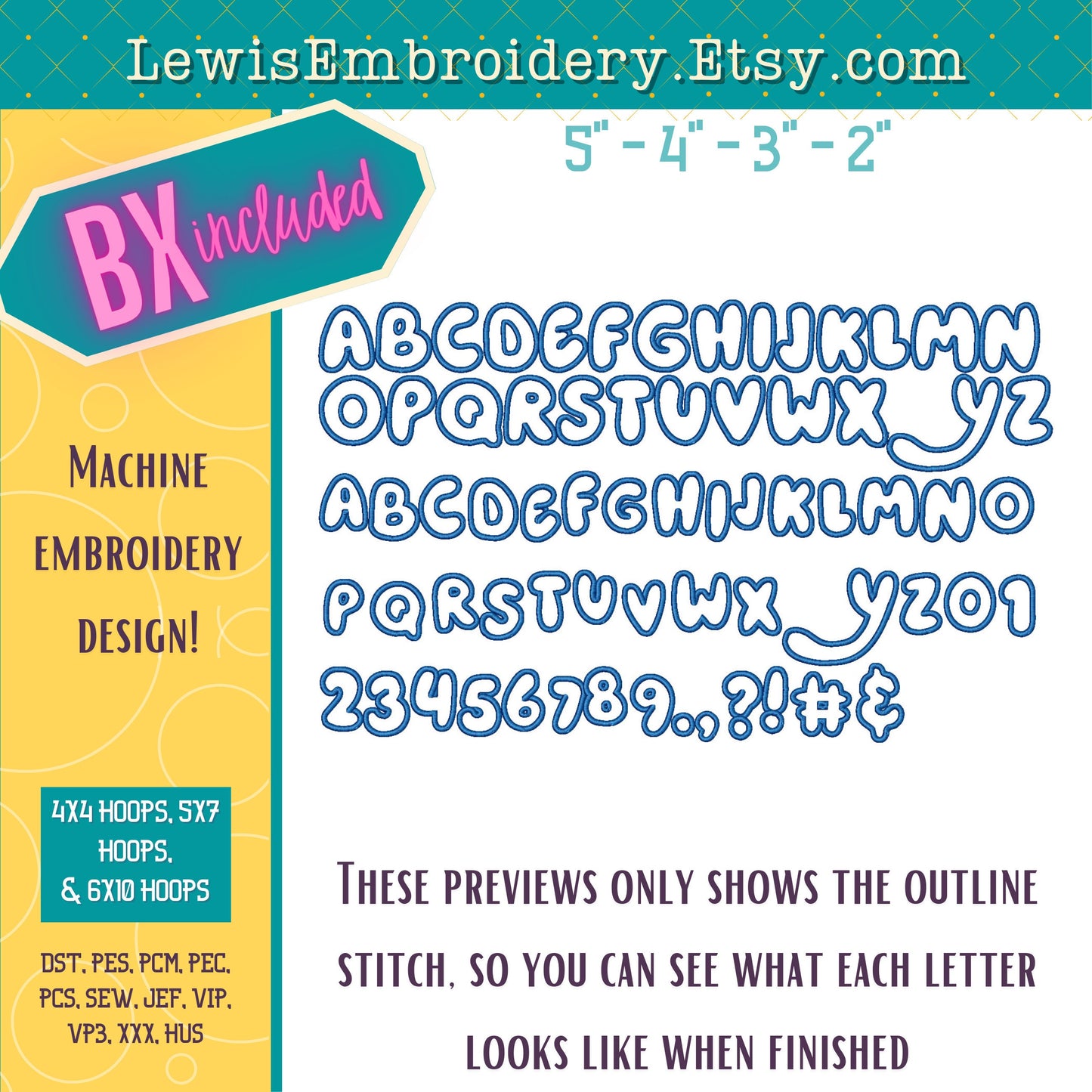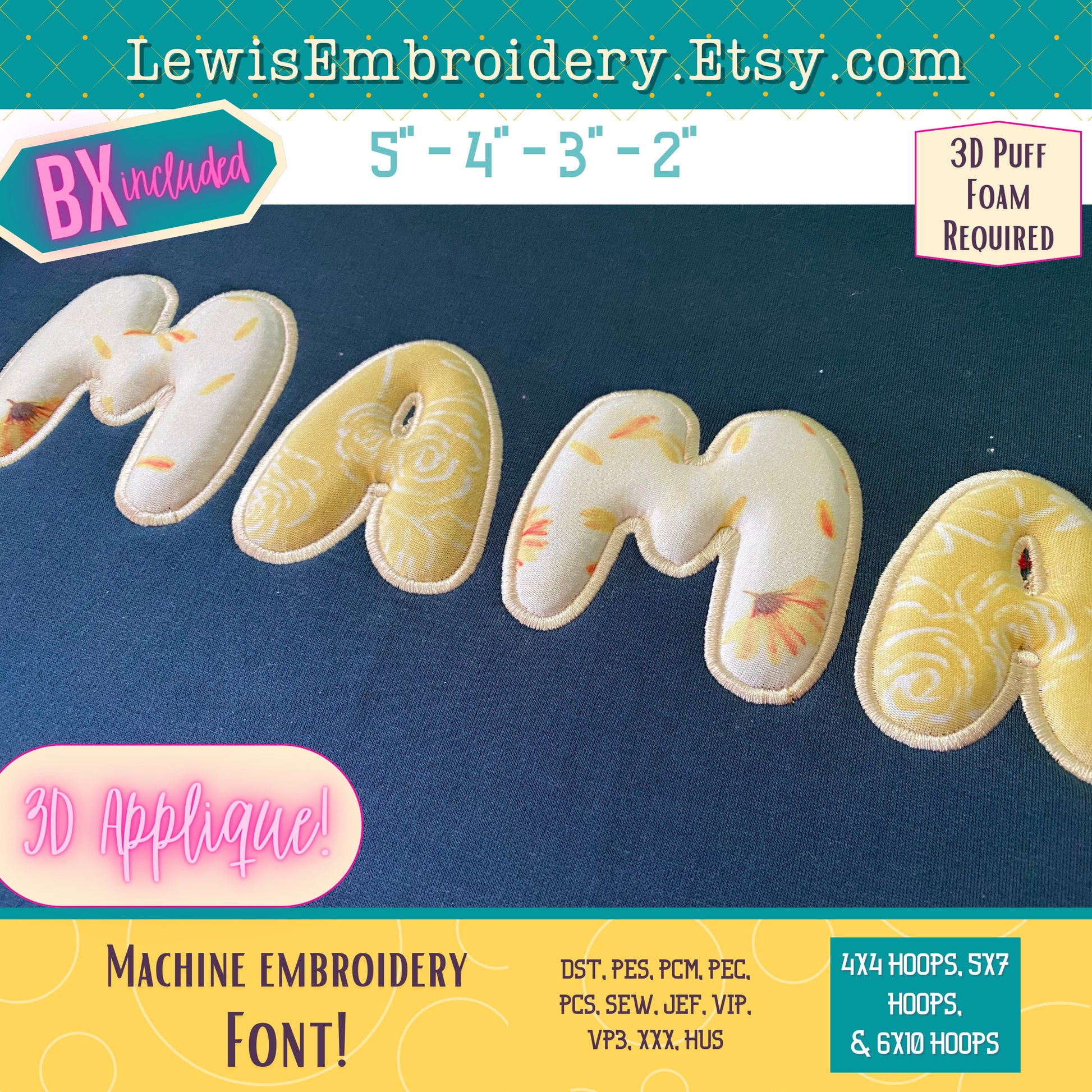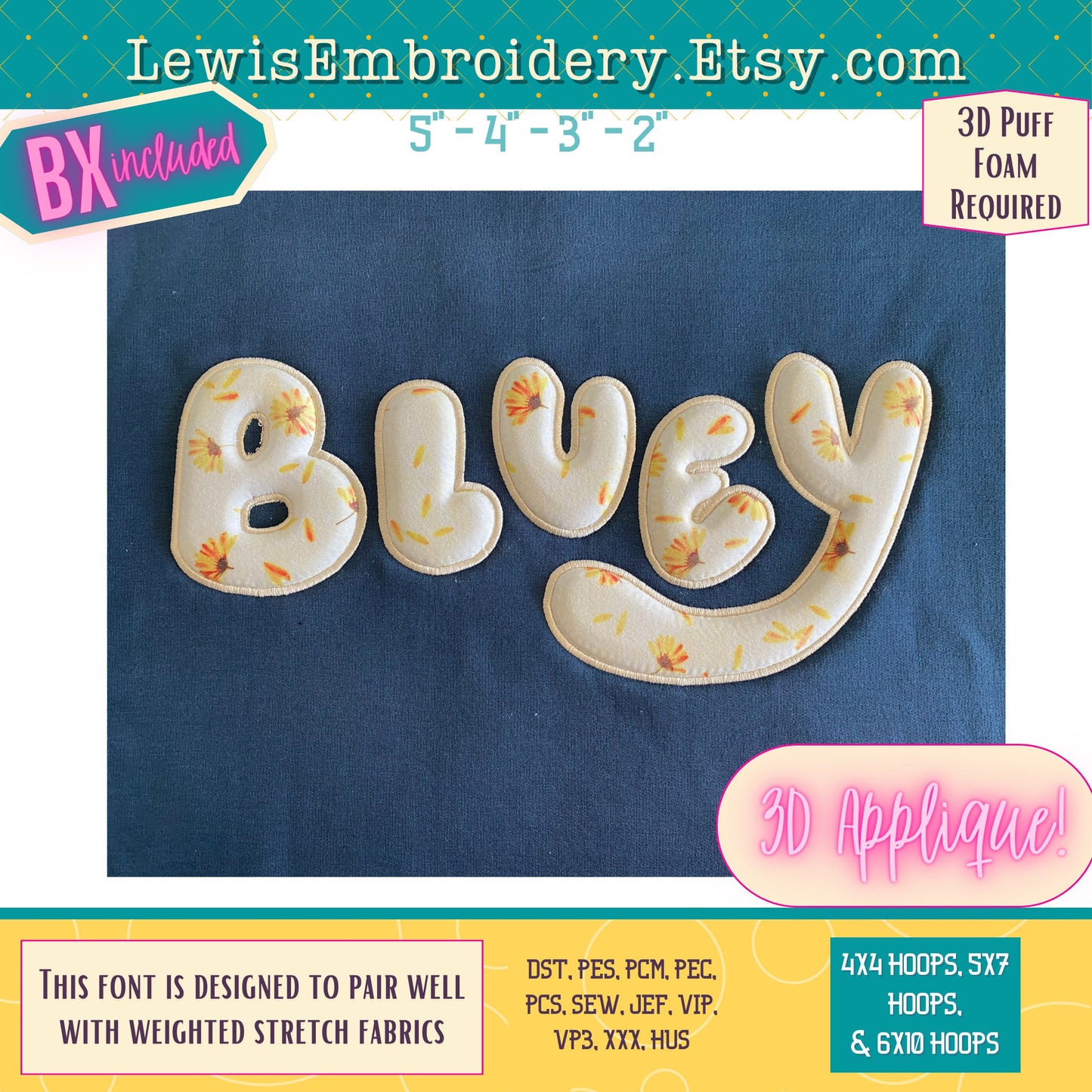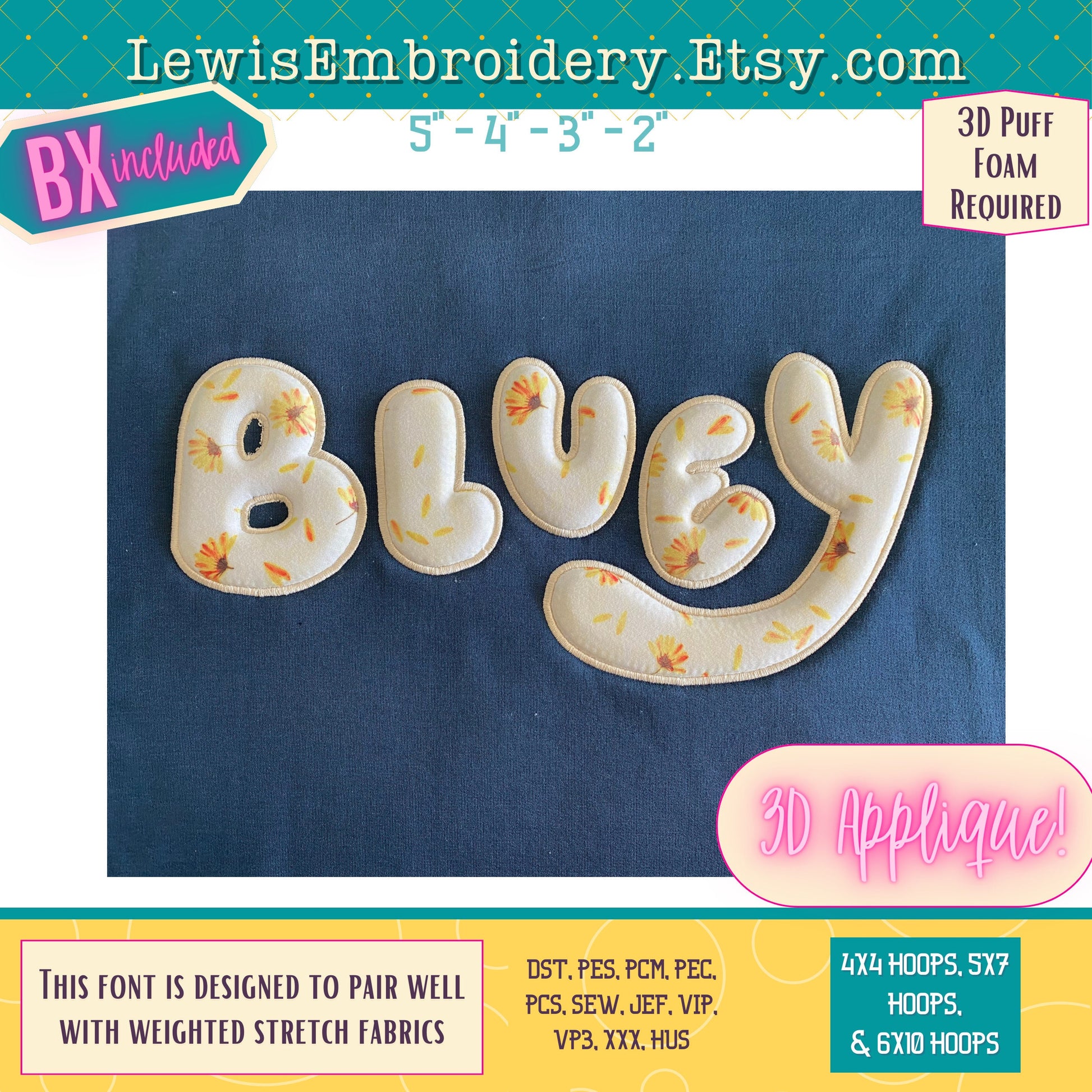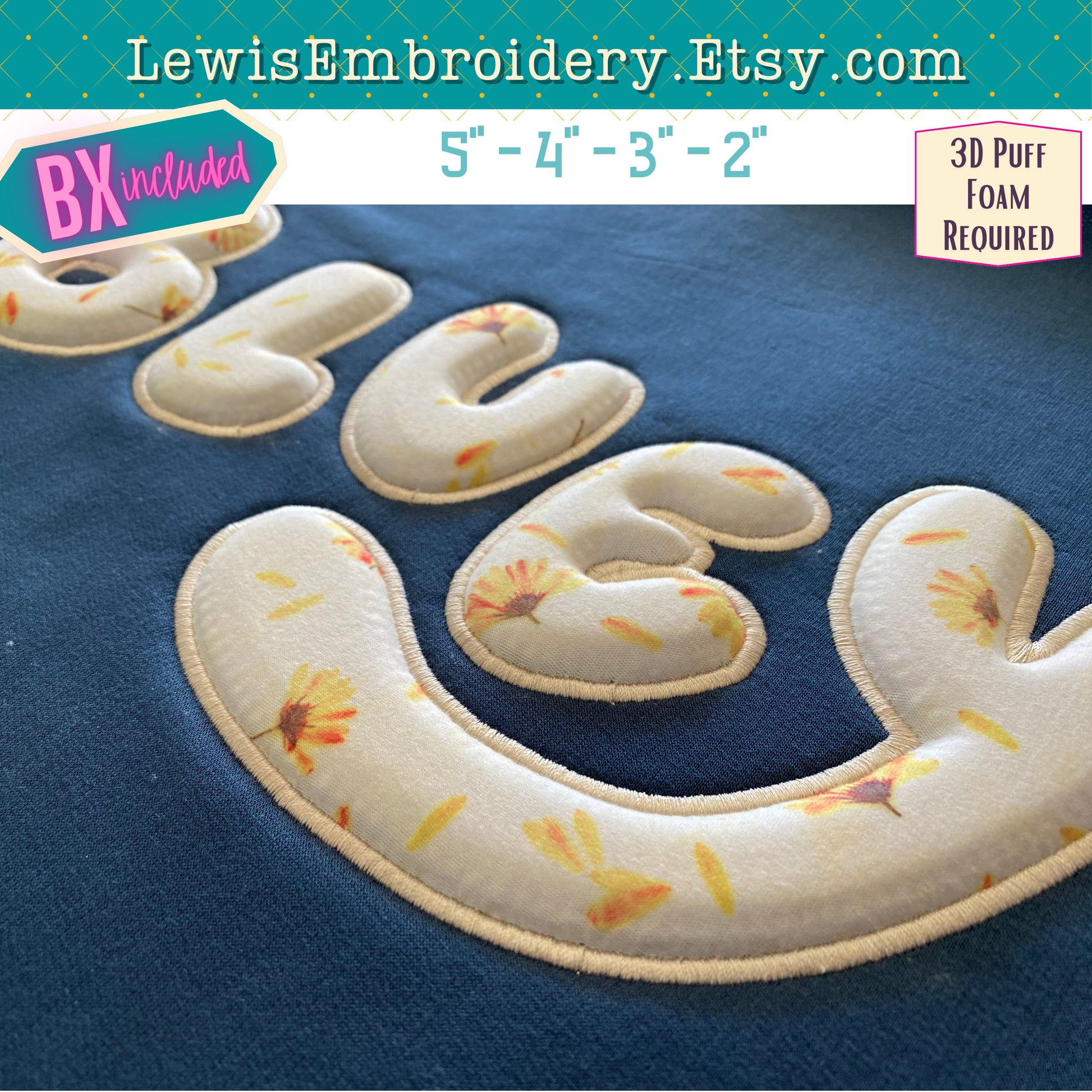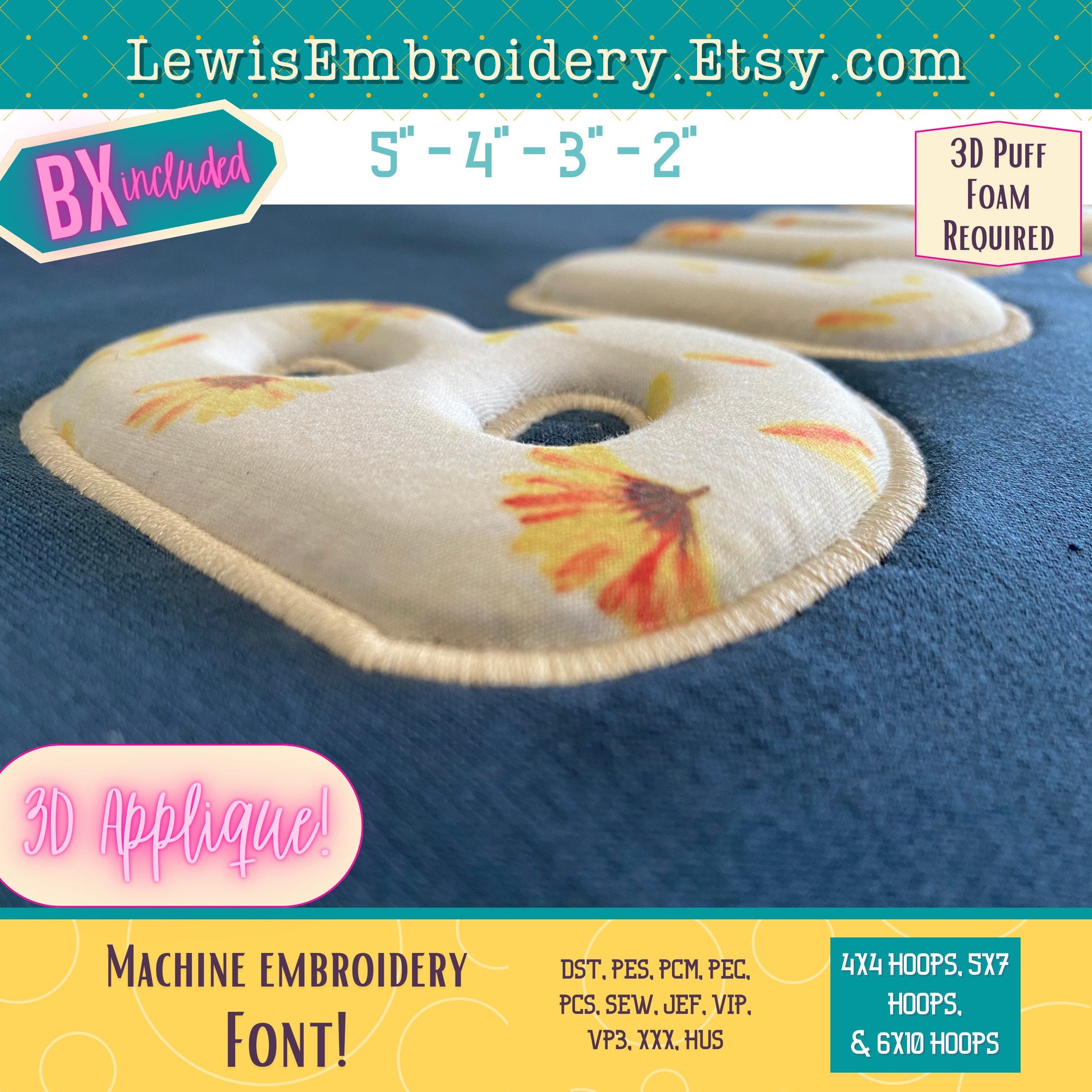
3D Puff Applique, Bluey, Machine Embroidery Font - With BX - (PDF Tutorial Included)
3D Puff Applique Font - Puff Foam Embroidery Font - Bluey Embroidery Font - Applique Embroidery Font - Birthday Font, Cartoon Font, BX
This font was designed to be used with a weighted stretchy fabric. The quality of the outcome cannot be guaranteed if you use very lightweght fabric, or fabric with no stretch.